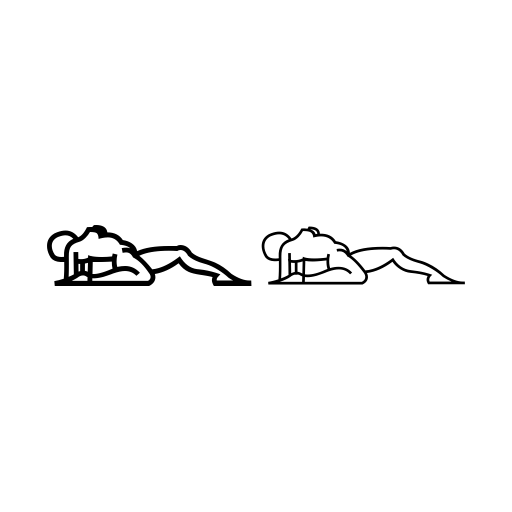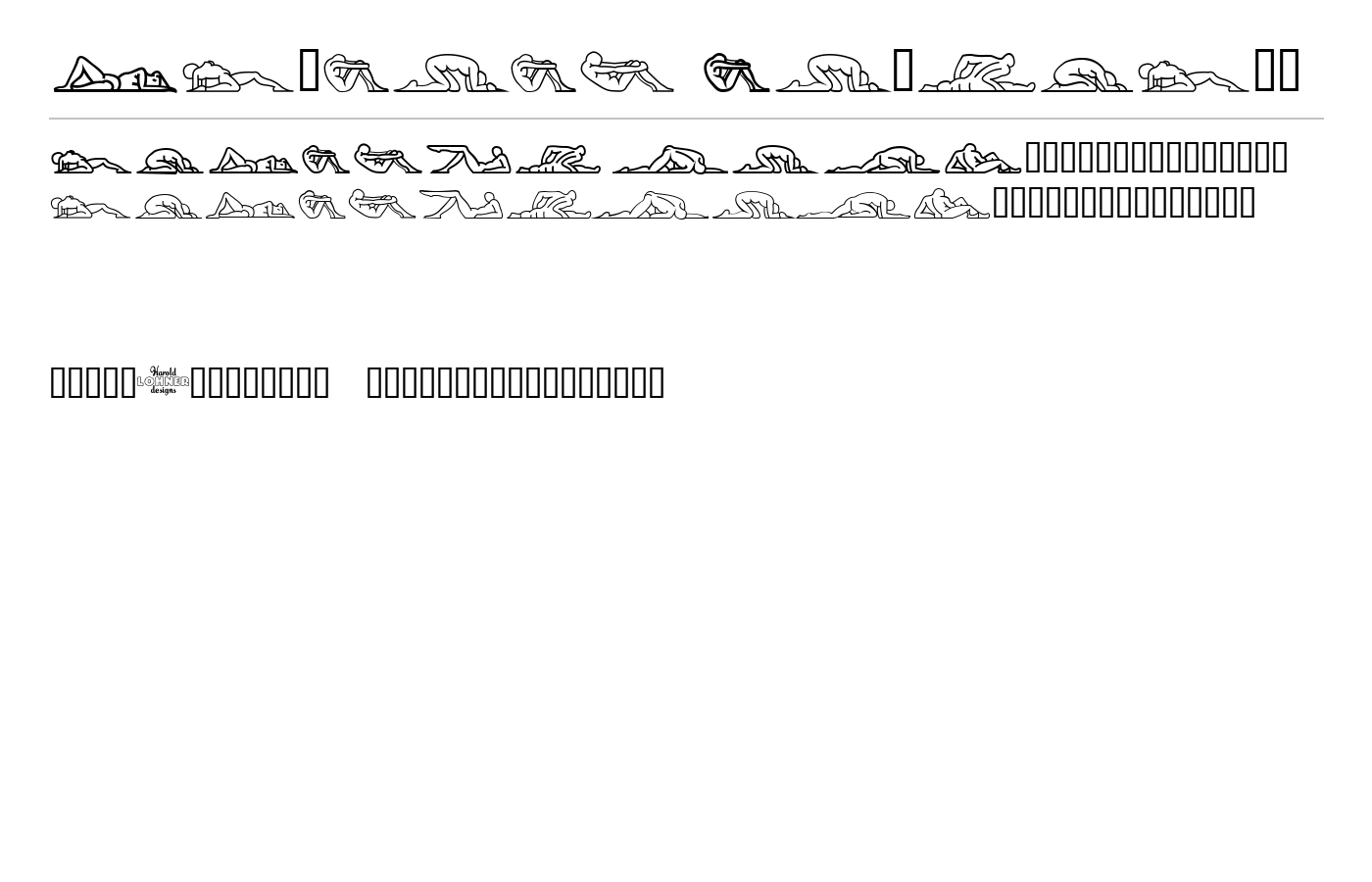
Candide Dingbats is a playful dingbat font featuring a charming collection of yoga-inspired human figures in various poses. Its clean, simple line art style makes it a versatile choice for adding whimsical, health-focused visuals to designs, perfect for wellness branding, yoga studios, and lifestyle projects looking for a lighthearted, approachable touch. This font works best in creative headers, logos, or decorative elements where imagery is needed without overwhelming text.
Candide Dingbats Font
About Candide Dingbats Font
| Font family | Candide Dingbats Font |